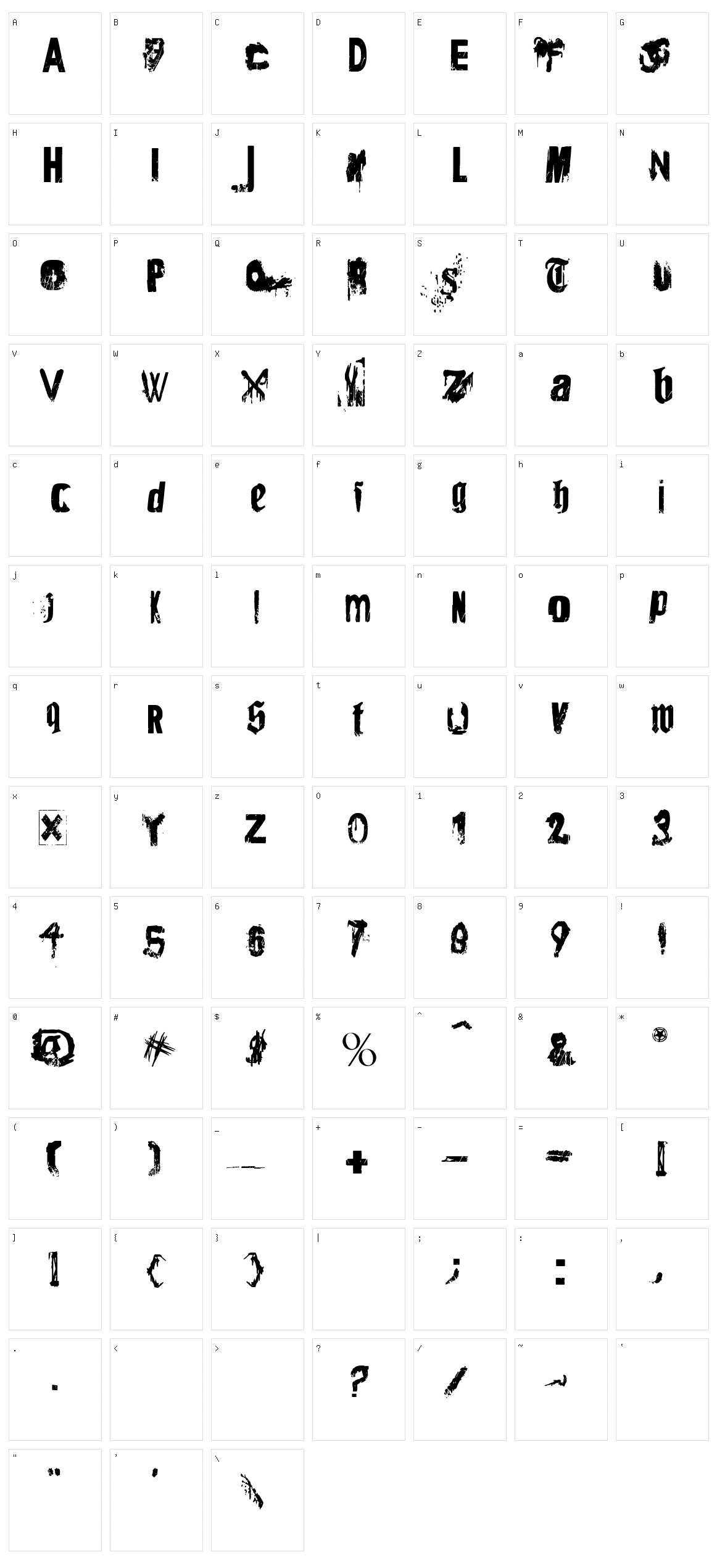
The free font Angsterdamn is carefully designed by SekoIdiootti, showcasing a thoughtful balance of creativity and usability and falls under the Destroy font style. When you download the ZIP file, it contains only 59.85 KB of font files, making it lightweight and quick to download. Please review the license details below to understand permitted usage and distribution rights. If license information is not available, we recommend using this font for personal projects only or contacting the author directly for commercial usage permissions.